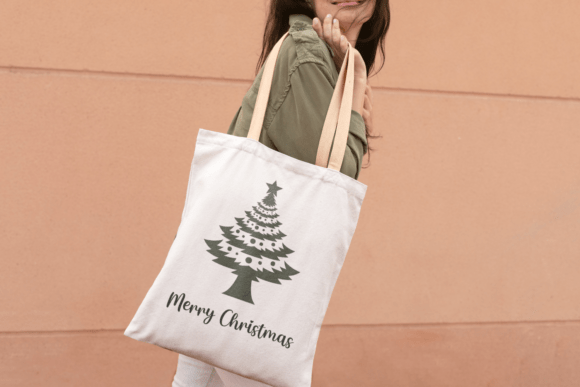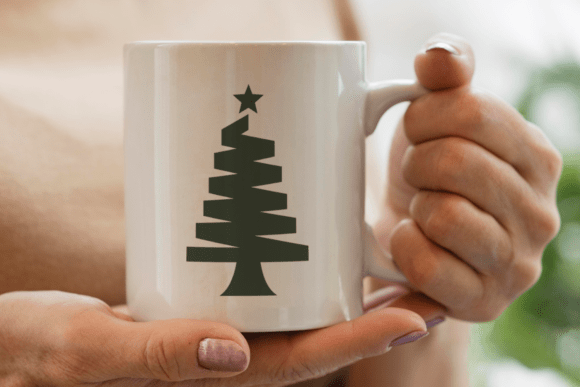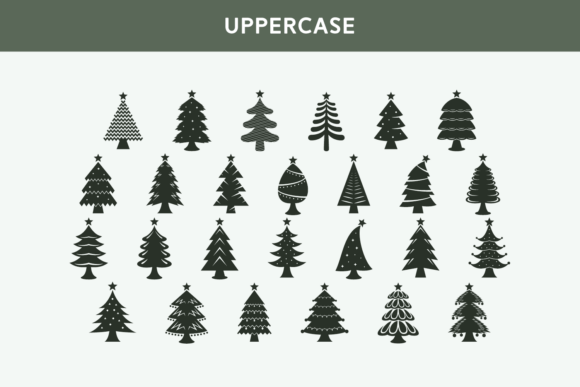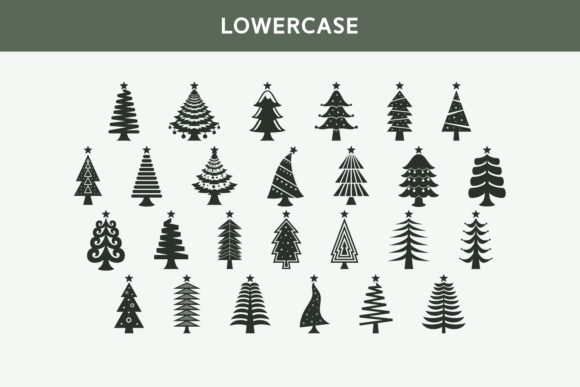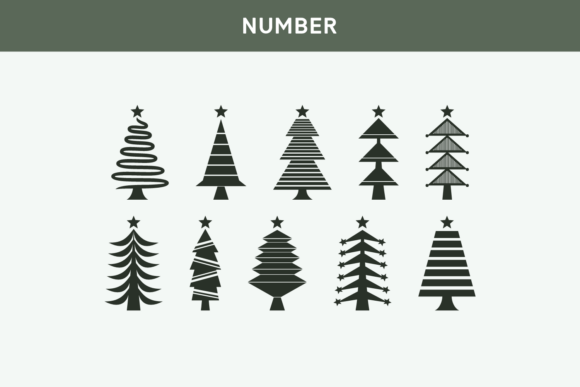
Deck the Halls with Creativity
As the holiday season approaches, designers often find themselves brainstorming innovative ways to spread cheer through their work. Whether it’s crafting custom greeting cards, designing festive patterns, or creating seasonal branding materials, the possibilities are endless. But sometimes, all it takes is the right tool to bring your vision to life. This is where the Beautiful Tree Font comes in – a comprehensive collection of stylized Christmas tree and evergreen icons that will elevate your holiday projects to the next level.
With over fifty unique designs at your disposal, the Beautiful Tree Font is an invaluable resource for designers looking to add a touch of whimsy and personality to their work. From simple outlines to decorated and organic forms, this set offers a wide range of styles to suit every creative need. Whether you’re working on a digital project or a hands-on craft, the Beautiful Tree Font is an essential tool that will make your holiday designs shine.
Key Features of Beautiful Tree Font
• Font Family: Beautiful Tree Font is a unique, hand-drawn font designed for various creative applications.
• Character Set: The font includes a wide range of characters, including uppercase and lowercase letters, numbers, and punctuation marks.
• Unique Characteristics: The font’s distinctive, hand-drawn style and natural, organic feel make it ideal for creative projects, such as invitations, posters, and editorial designs.
Designer Review: Beautiful Tree Font
Overall, I was quite impressed with the Beautiful Tree Font. Here are some of its standout features: ✨
• Unique design: The font has a beautiful, organic feel to it, making it perfect for nature-themed or earthy designs.
• High-quality rendering: The font is well-crafted and renders beautifully at various font sizes.
• Wide character set: The font includes a wide range of characters, including international characters and punctuation.
• Great for headings: The font’s bold lines and intricate details make it perfect for use as headings or titles.
• Limited legibility: At smaller font sizes, the font can be difficult to read, especially for users with vision impairments.
• Lack of consistency: The font’s unique design can make it difficult to pair with other fonts, and some users may find it distracting.
Overall, I think the Beautiful Tree Font is a beautiful addition to any designer’s toolkit. While it may have some limitations, its unique design and high-quality rendering make it a great choice for the right project.
Use Beautiful Tree Font for:
1. Whimsical and playful designs.
2. Children’s book illustrations and educational materials.
3. Wedding invitations and stationery.
4. Branding and marketing materials for eco-friendly or nature-inspired businesses.